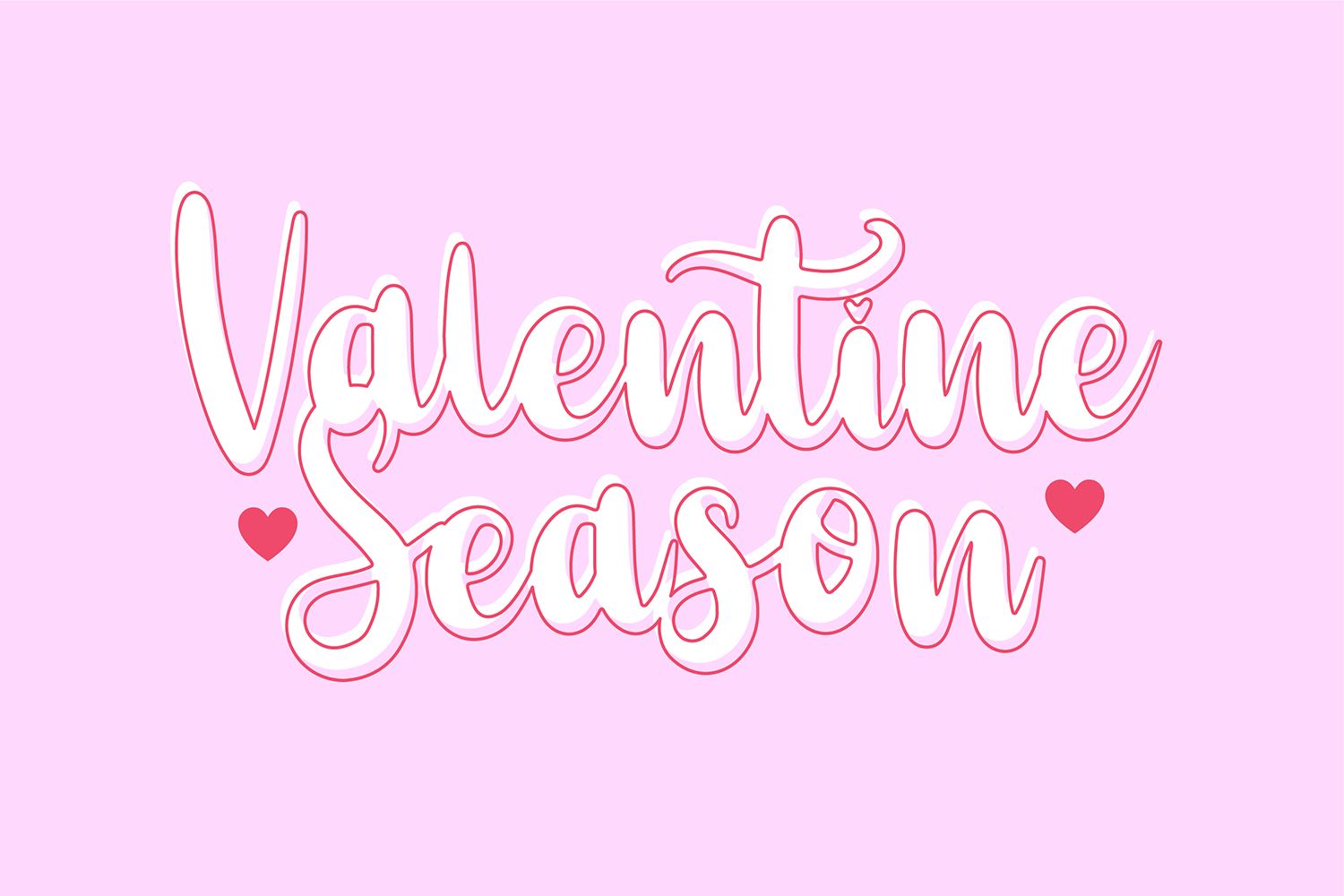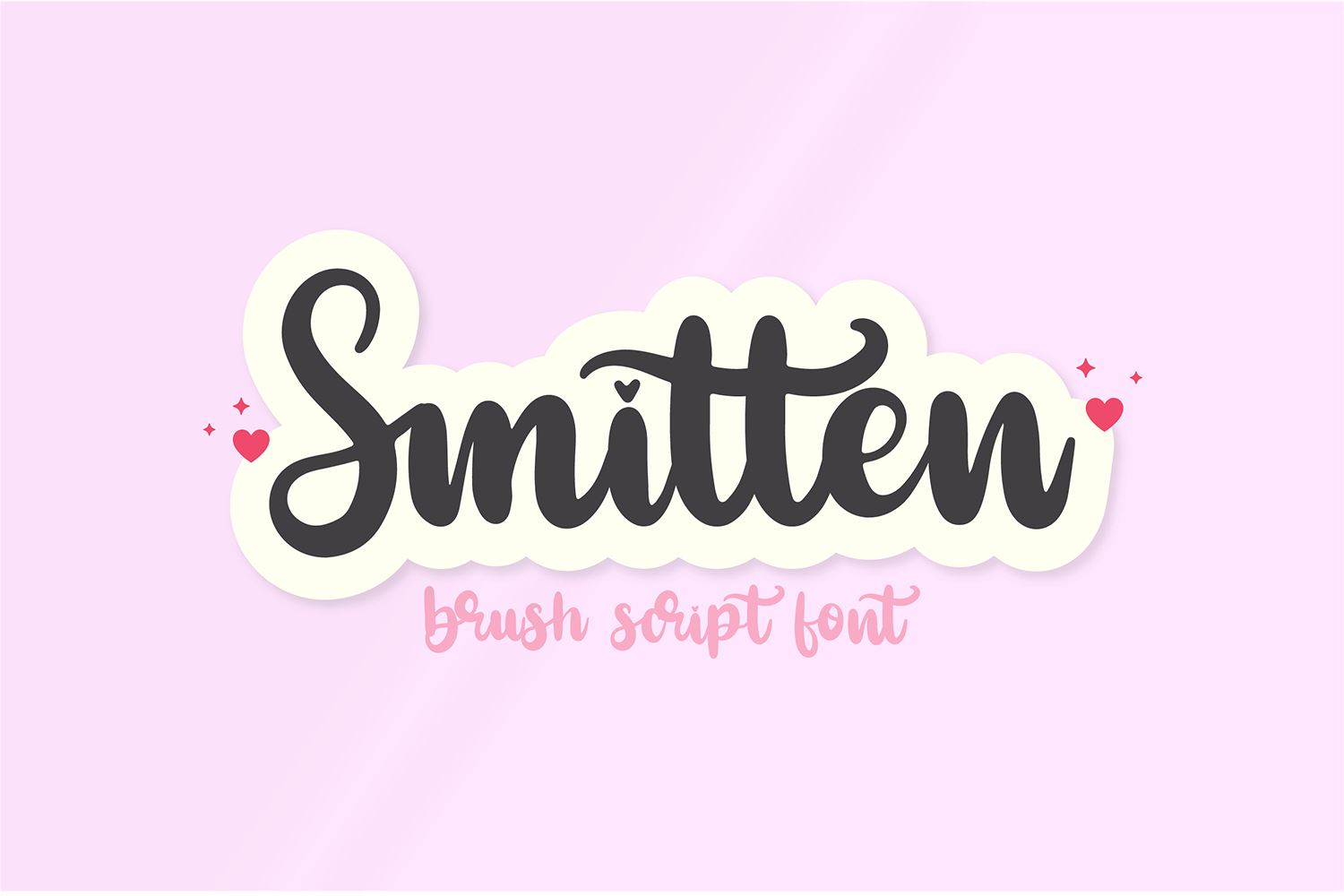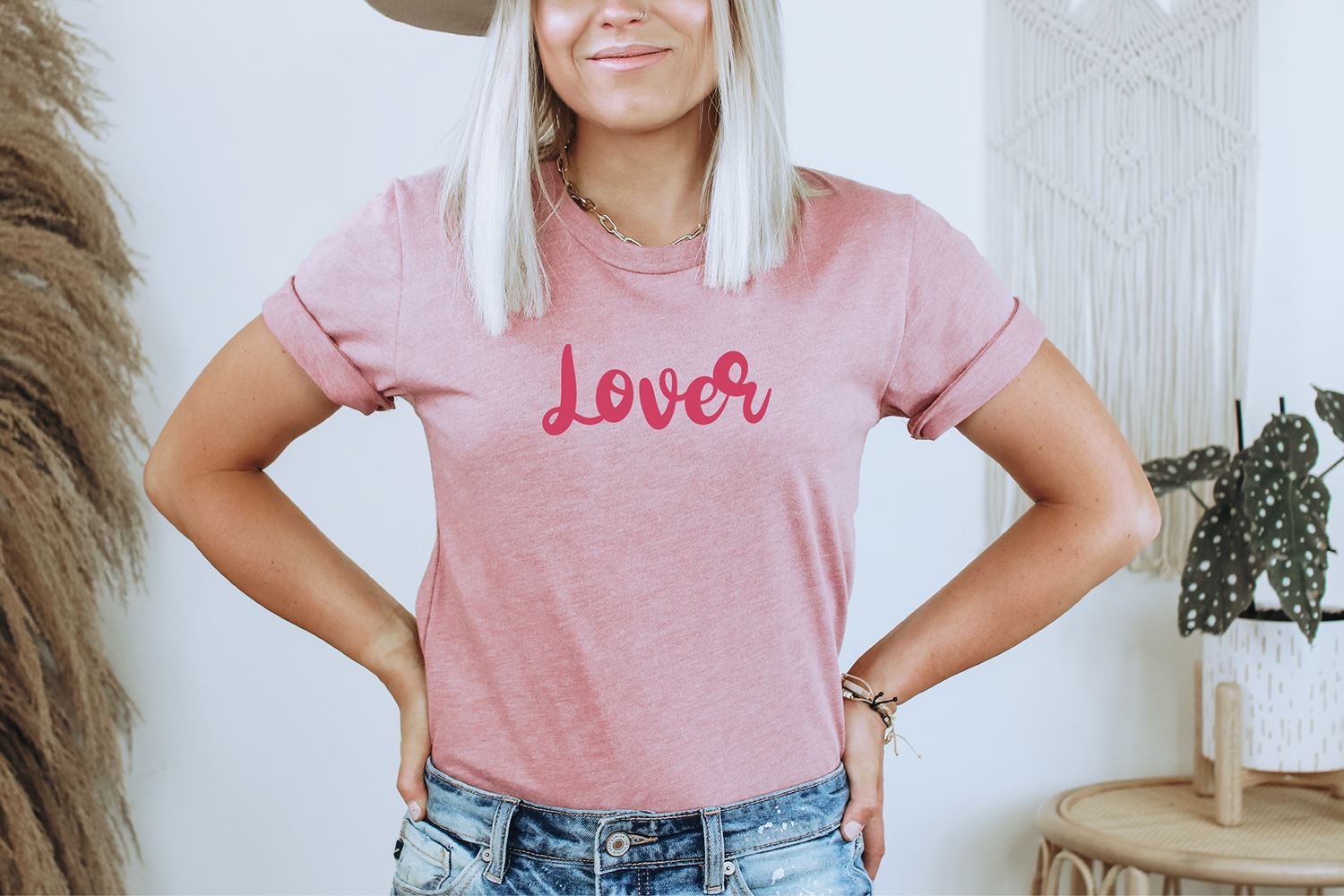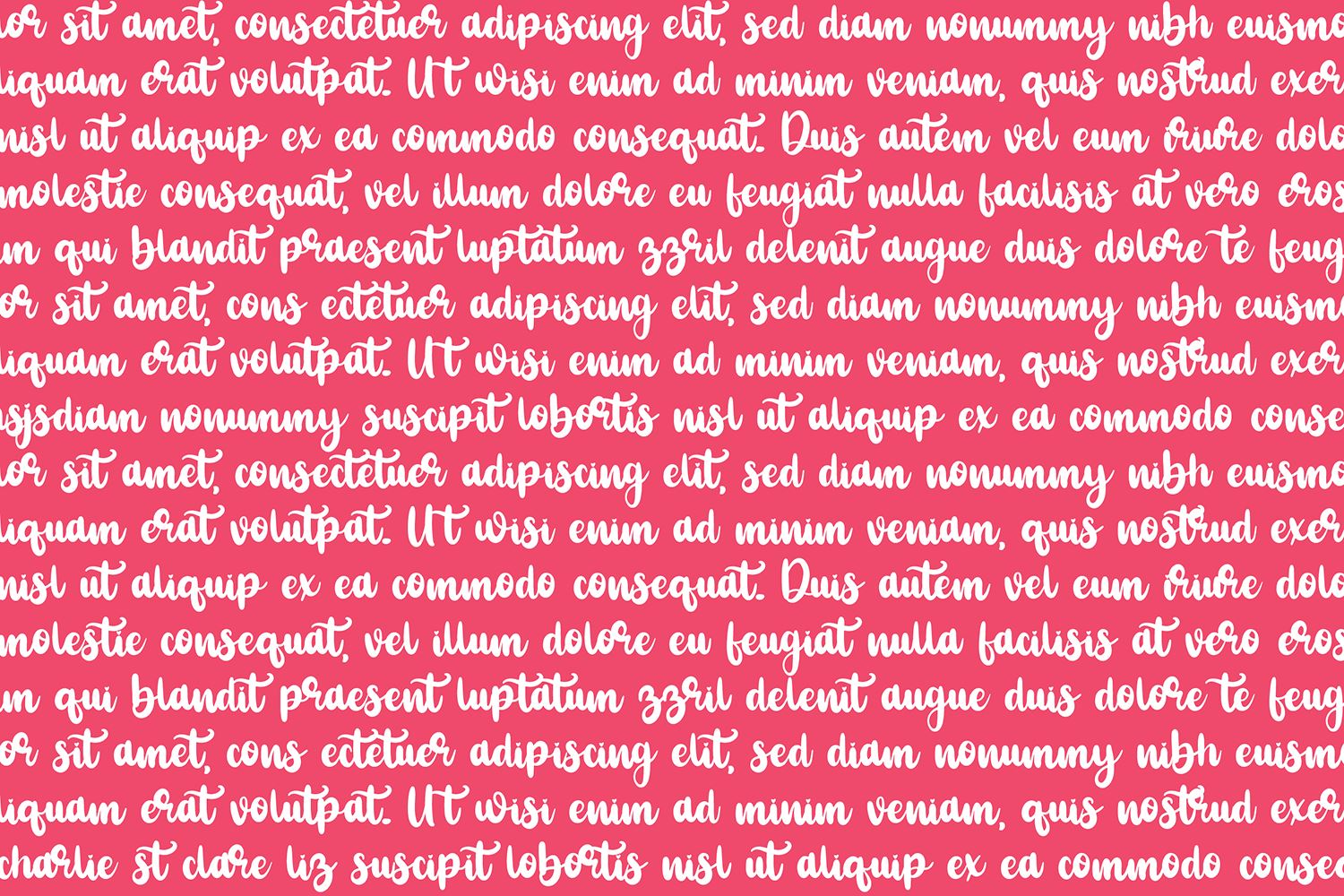
Smitten Valentine’s Day Script Font
About Smitten Valentine’s Day Script Font
SMITTEN bold brush script Valentine’s Day font This download includes the installable .OTF version of this font. This font was made specifically for your Valentine’s/Wedding projects. Use it for Valentine’s cards, crafts for decor, invitations, and more!